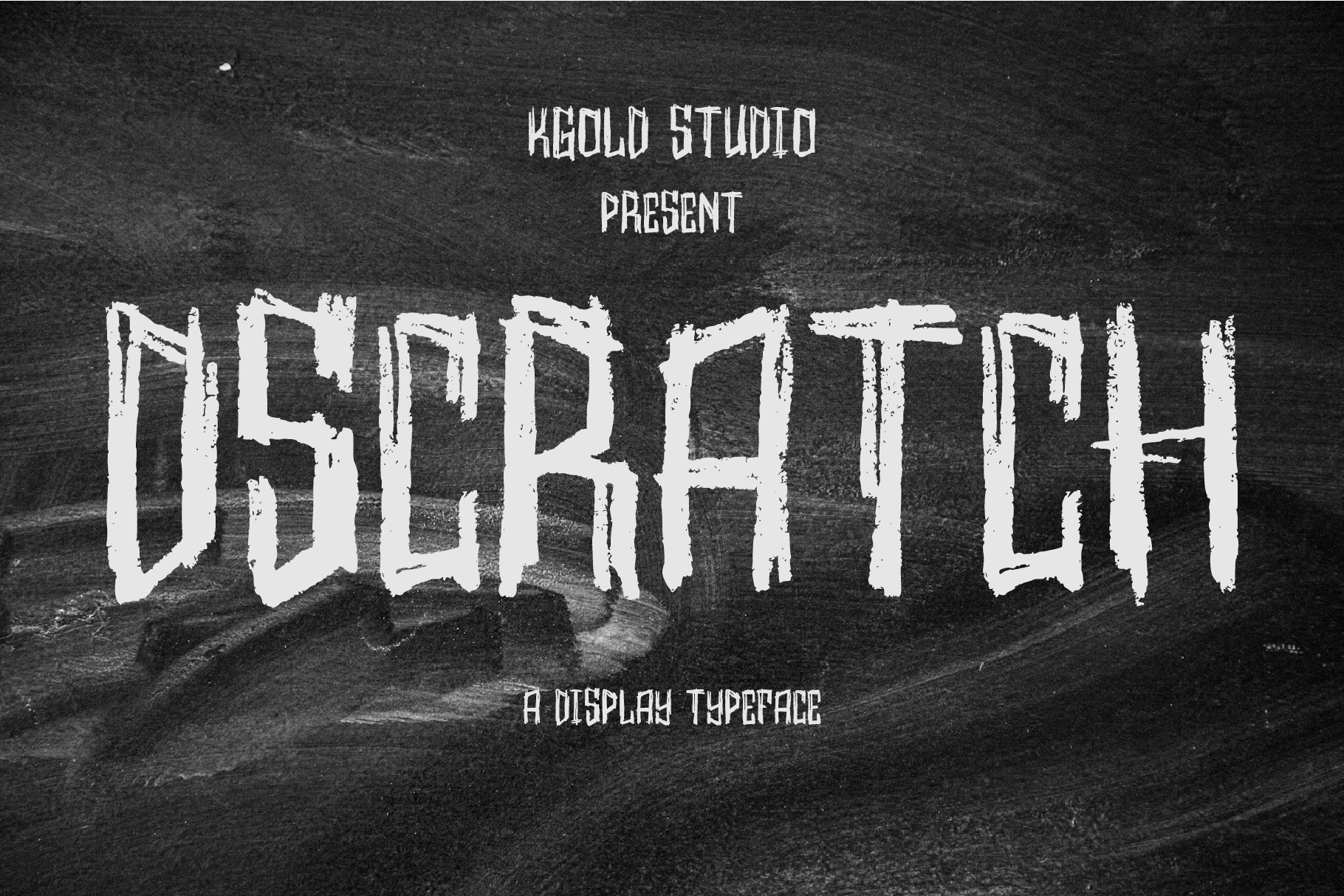
Dscratch - Display font
Dscratch is a bold and expressive chalk-scratch style font that brings a raw, handmade touch to your designs. With its dynamic strokes and rugged texture, this font perfectly captures the essence of chalk-drawn lettering, making it ideal for projects that seek a casual, creative, or rebellious vibe. Whether you're designing for posters, book covers, logos, or digital graphics, Dscratch adds a unique, artistic edge that commands attention. Its imperfect charm evokes creativity and authenticity, perfect for standing out in both professional and personal projects.